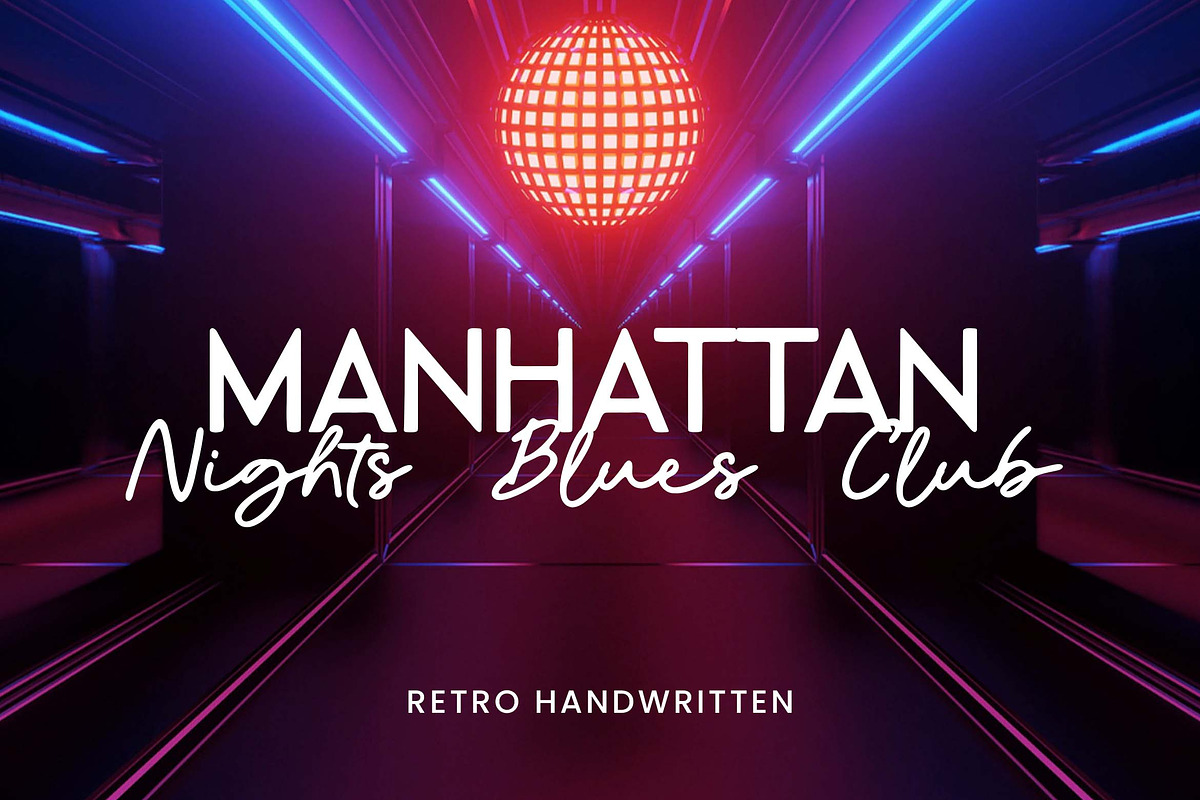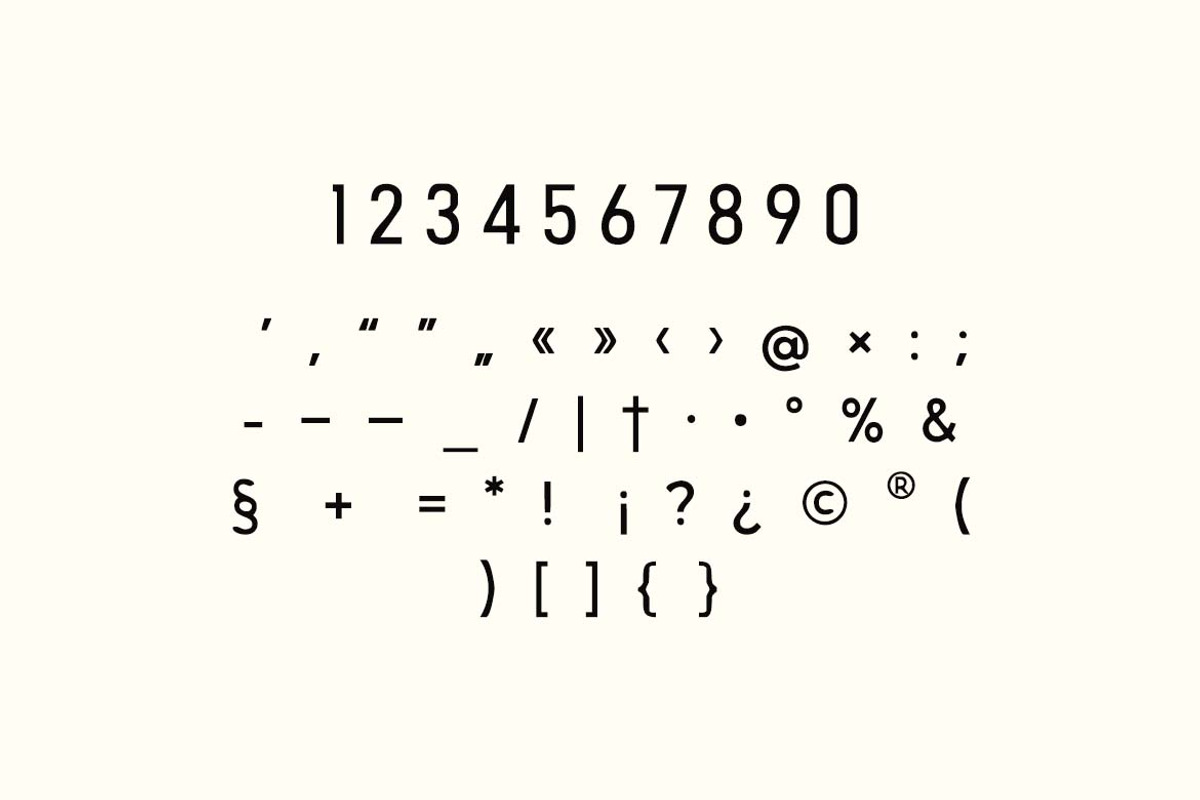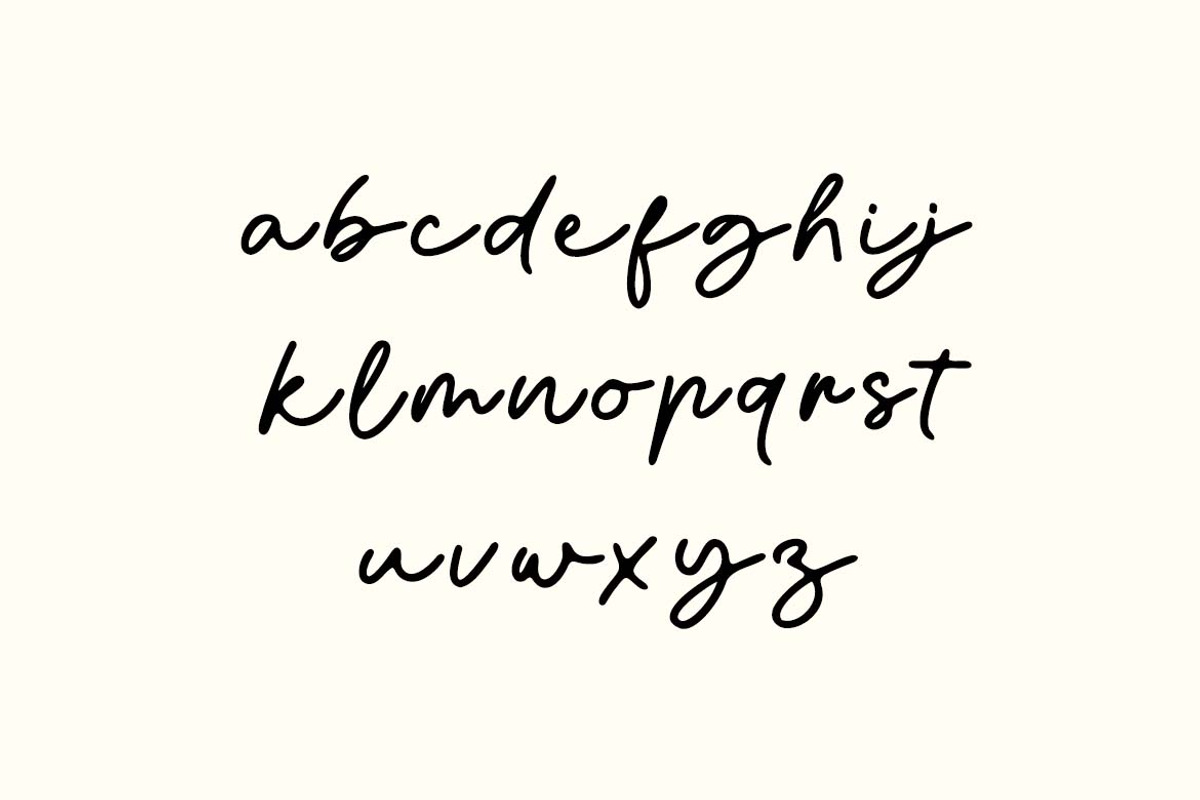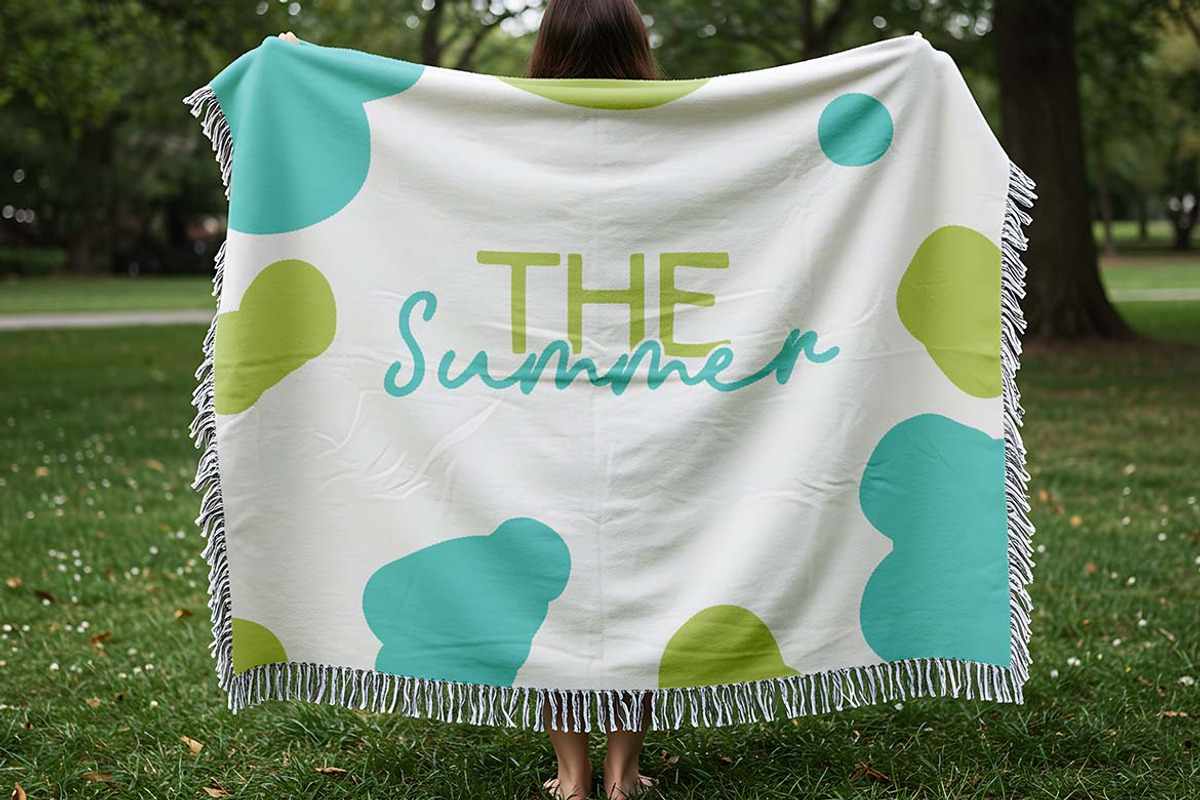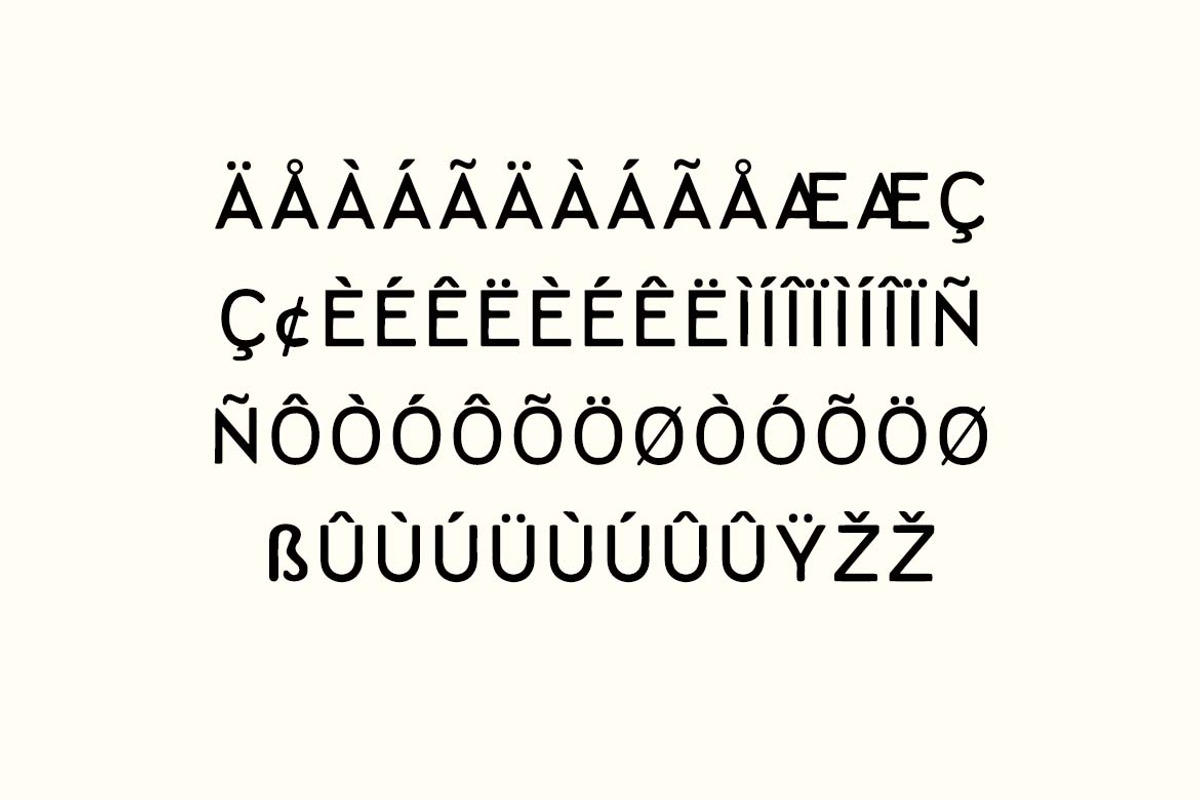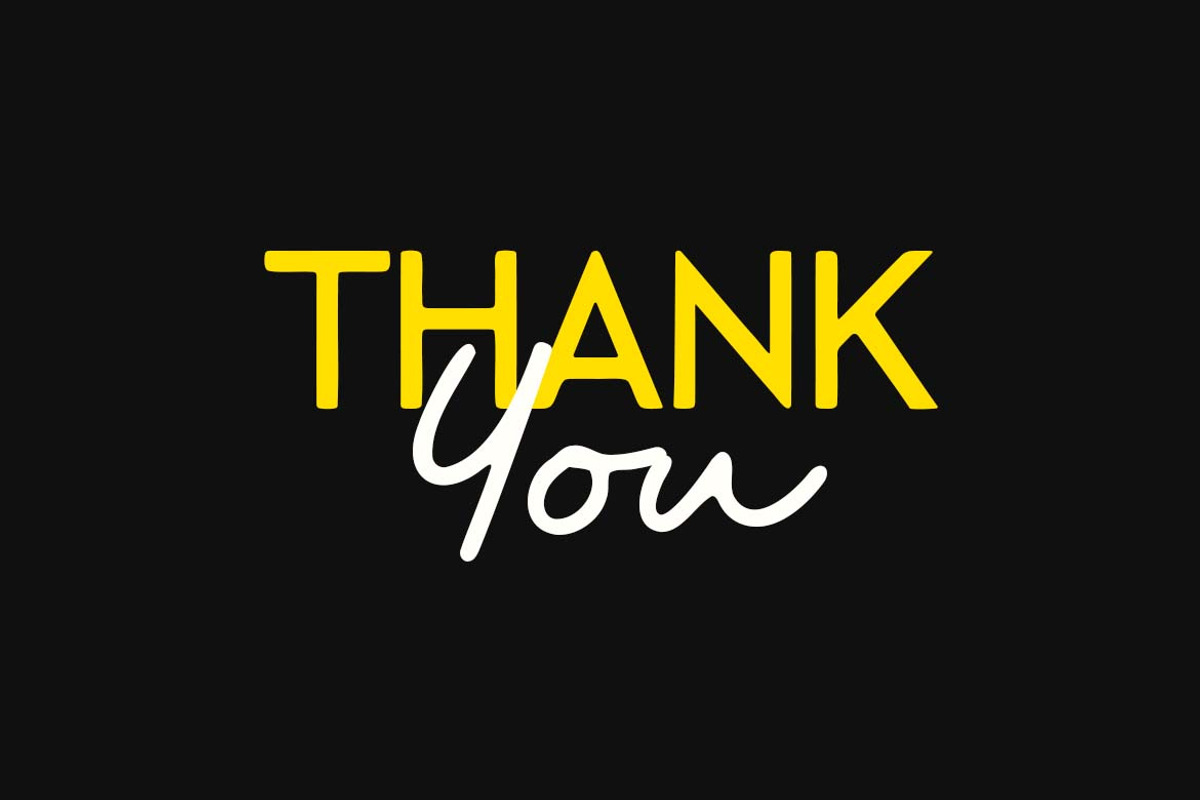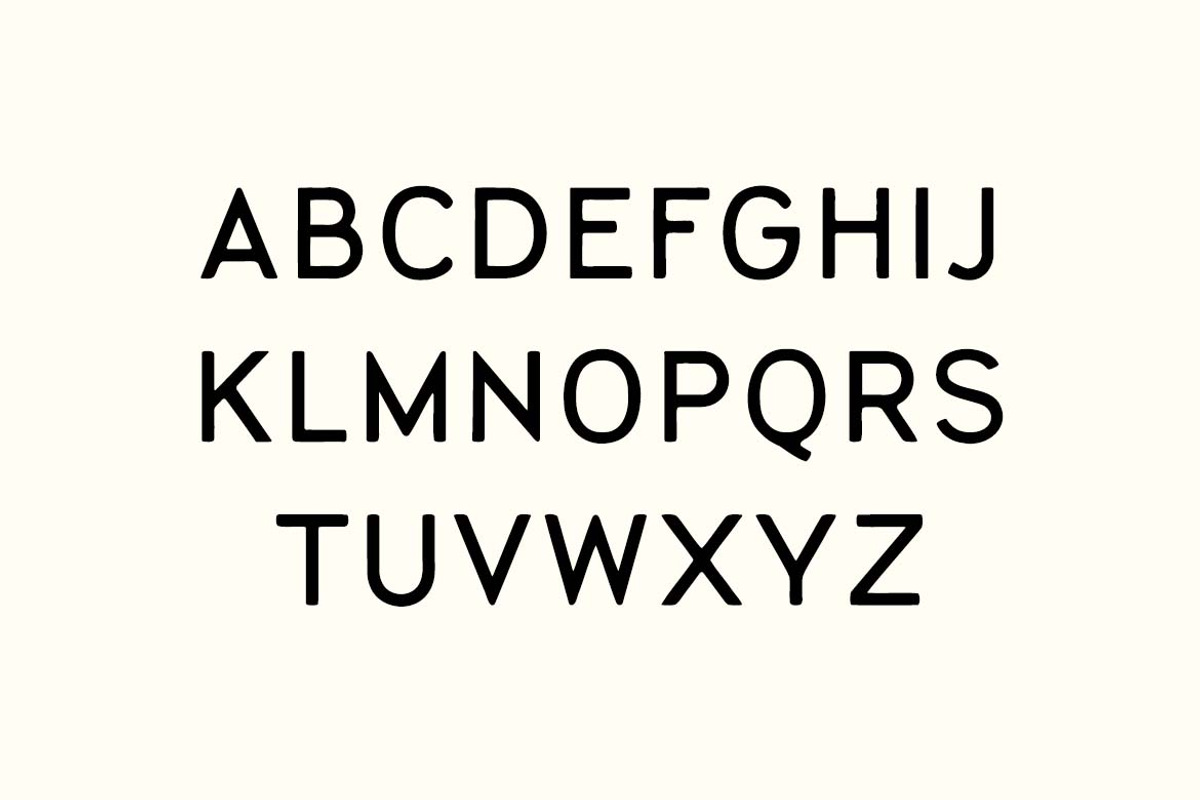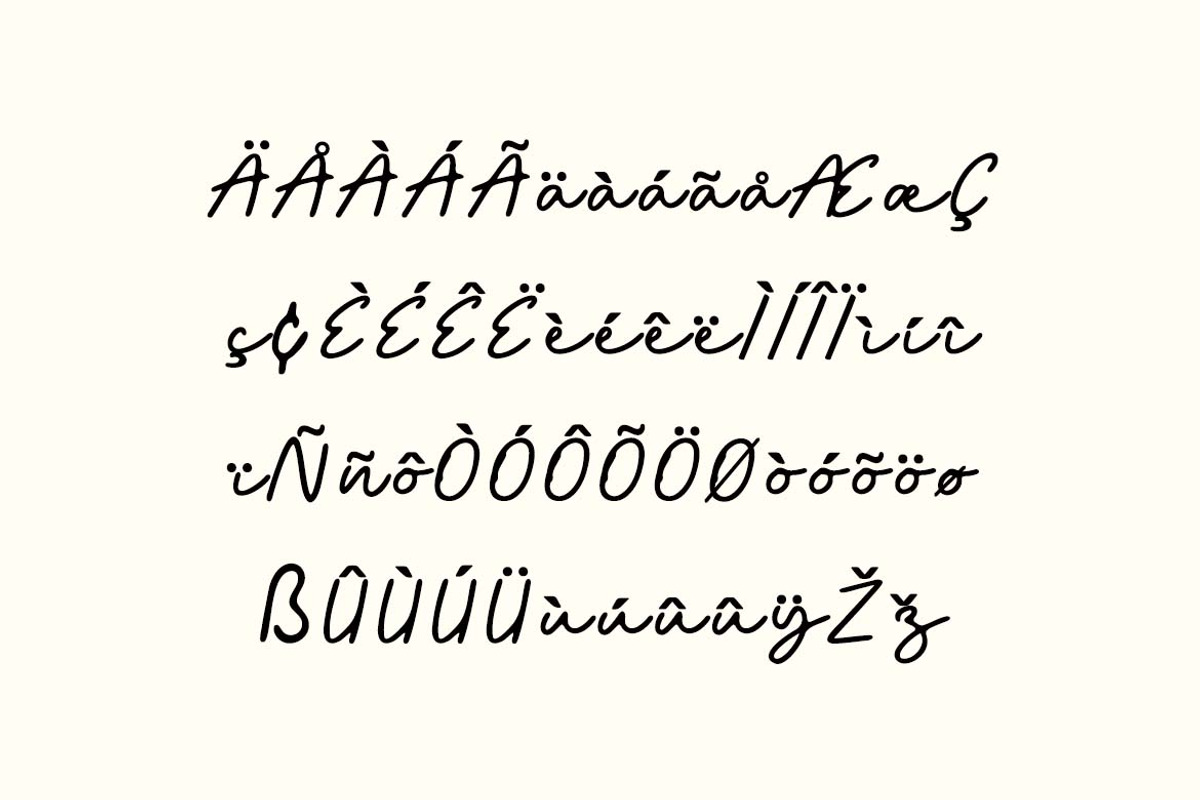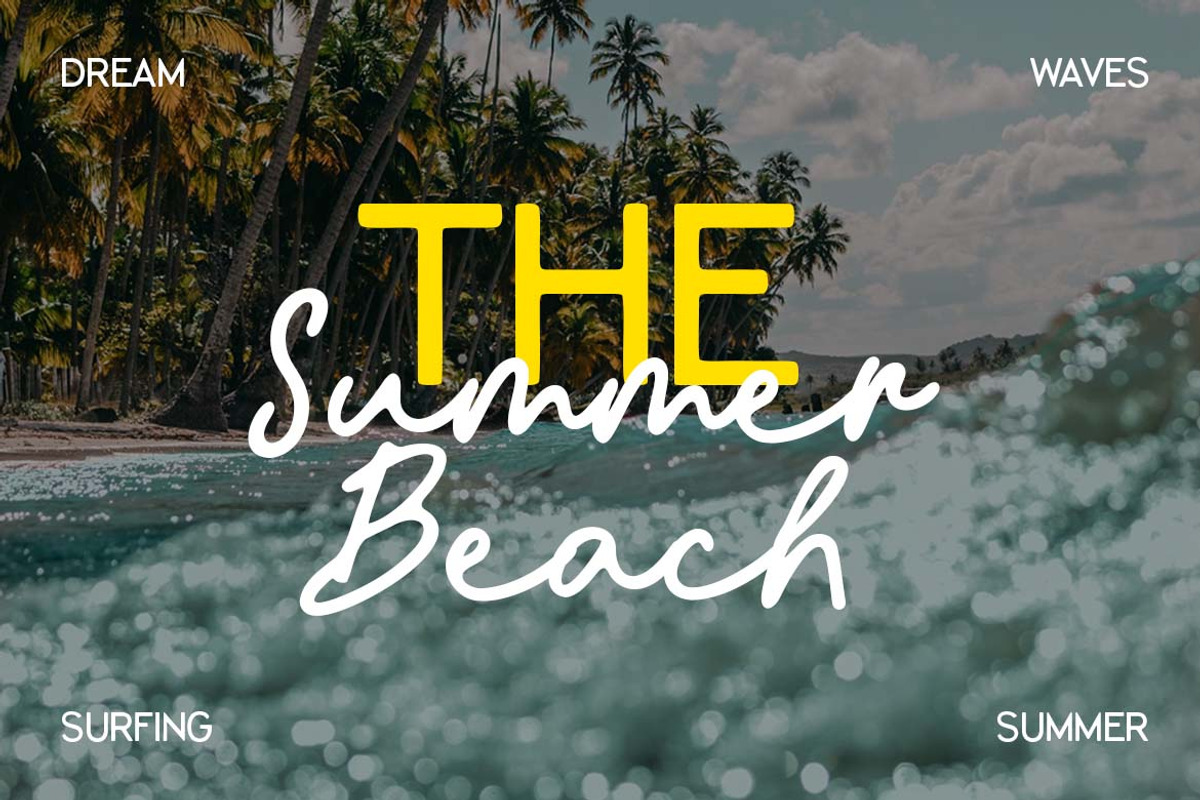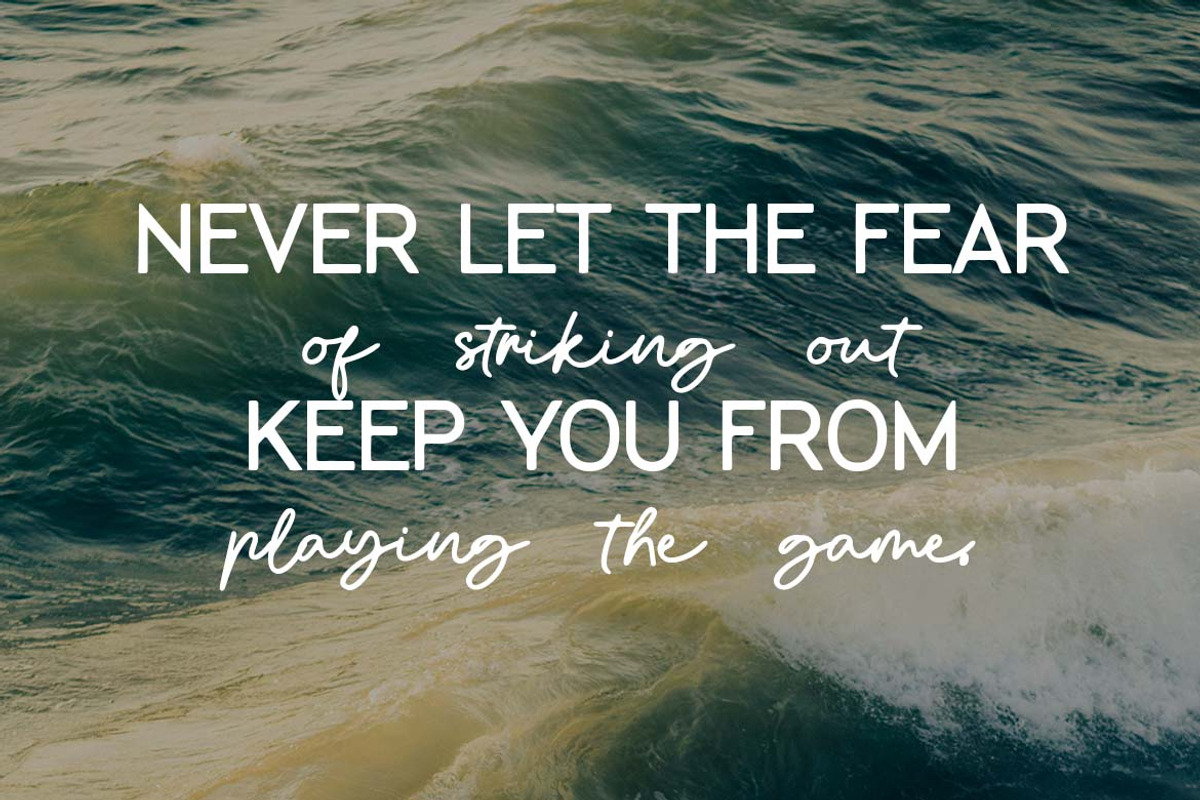
Manhattan Night Blues Handwritten
Manhattan Night Blues Handwritten. The modern display font feels beautiful classy, elegant, and stylish. This font is ideally suited for a wide variety of projects, such as signature, stationery, logo, wedding, typography quotes, magazine or book covers, website headers, branding, and more. Also, fashion-related branding or editorial design displays both masculine and feminine qualities.